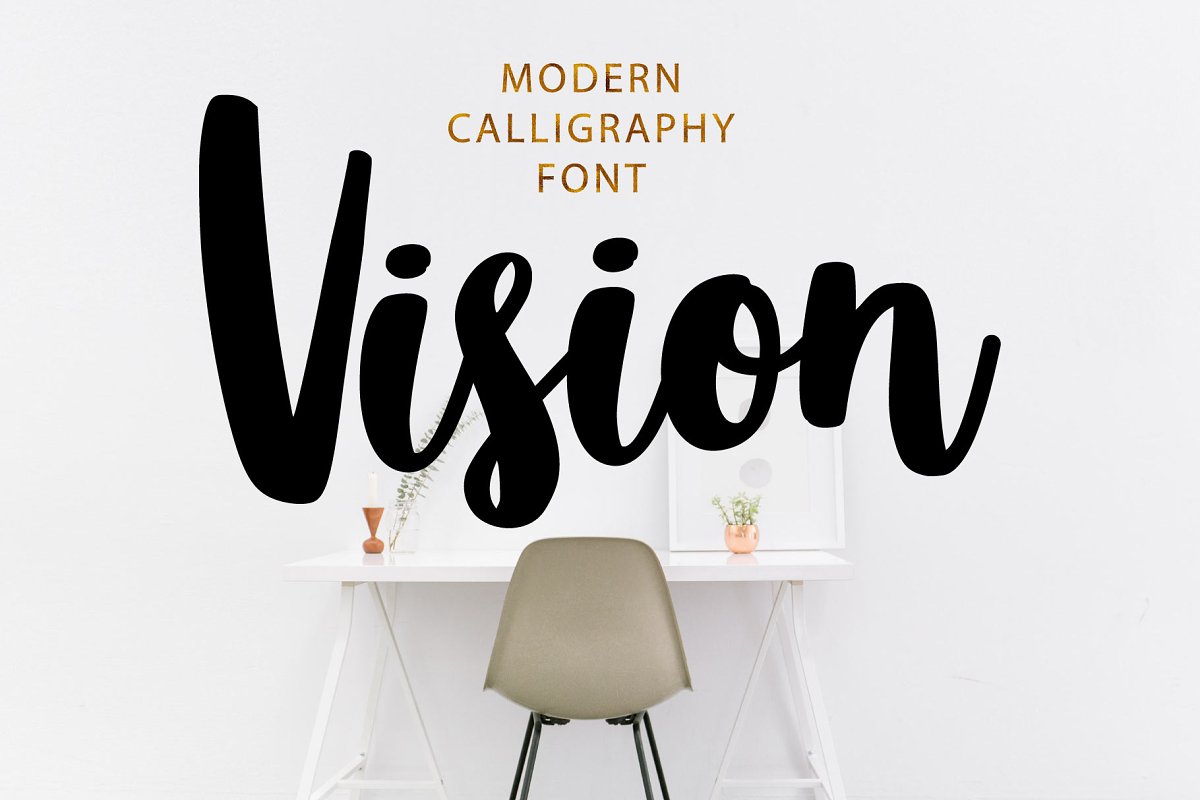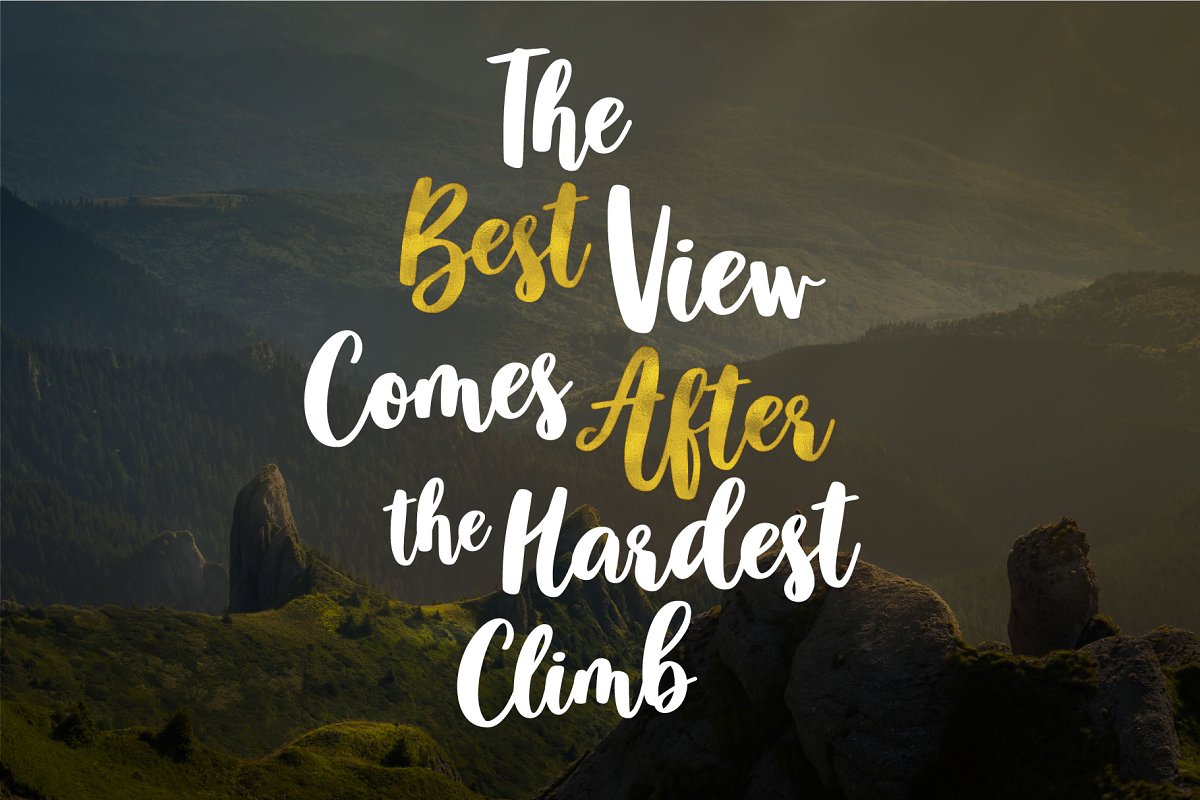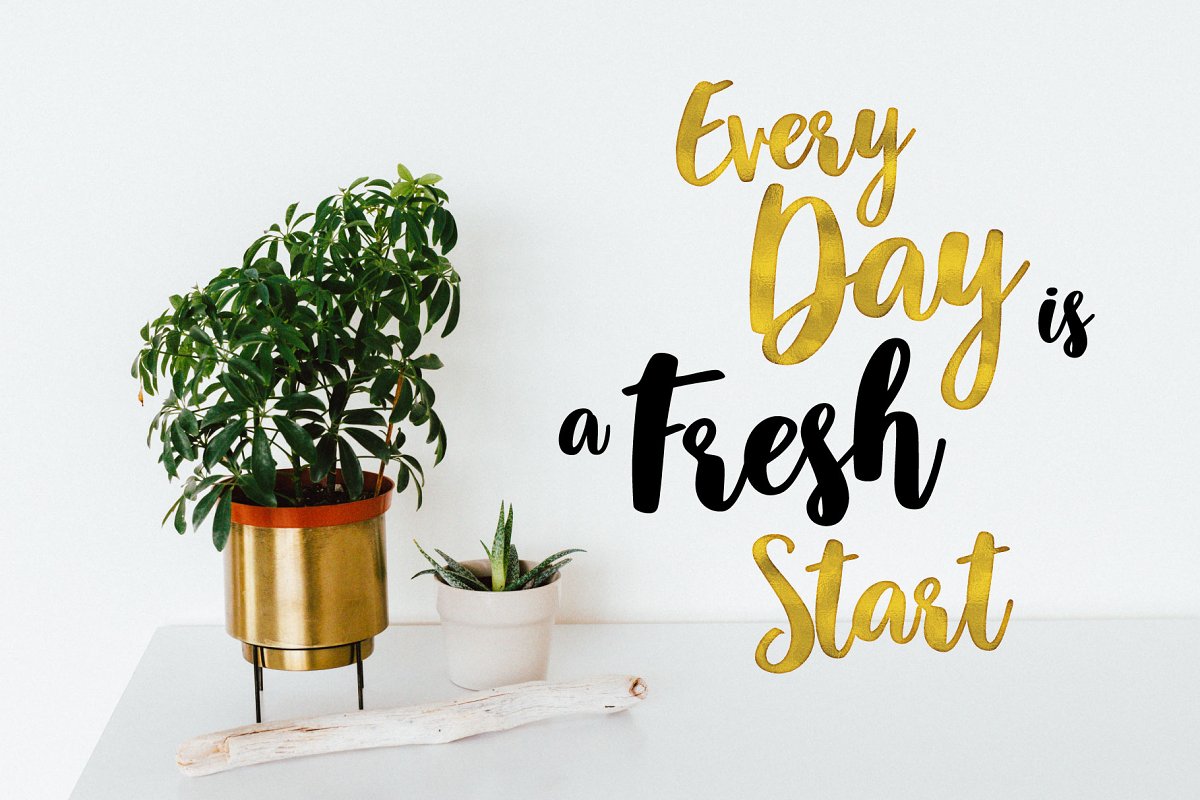
About the Vision bold script Font
VISION is a bold modern calligraphy script font, Every single letters have been carefully crafted to make your text looks beautiful, This modern calligraphy font is perfect for all your design projects like wedding logos, signatures, packaging design, wedding stationary, modern websites and print projects, VISION comes with upper and lowercase calligraphy characters, numbers, marks and punctuation